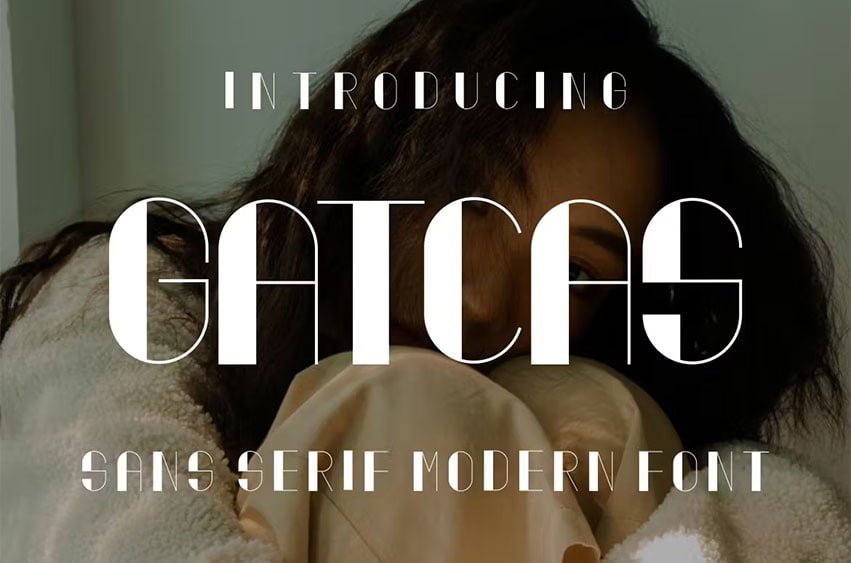
Gatcas Font Modern Sans Serif. Gatcas is a modern and simple font, best used as a display for headings, logos, branding, magazines, product packaging and invitations. Gatcas come with clean lines and smooth curves give any project an extra touch of class.